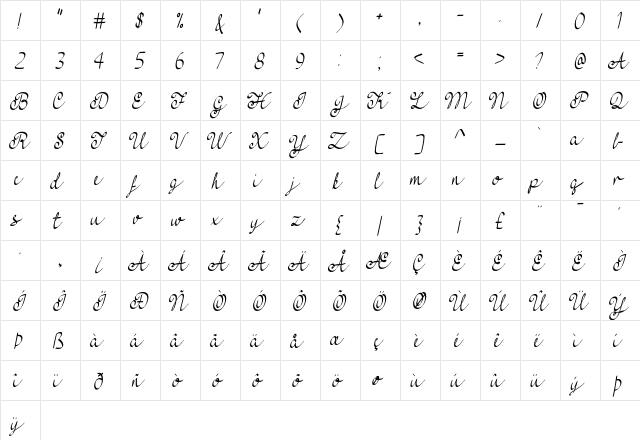
Feel My Heart Regular
Design Context for Feel My Heart Typeface
Feel My Heart is a composed and adaptable typeface that performs quietly and consistently across a wide range of design contexts.